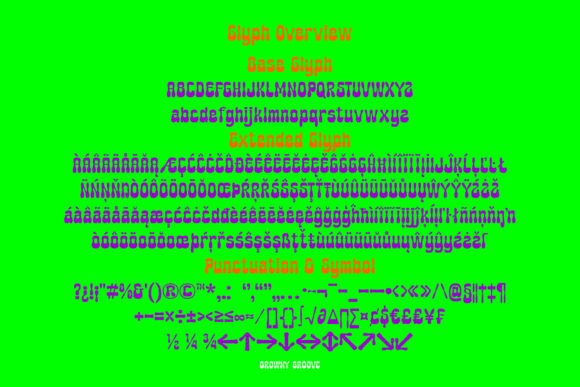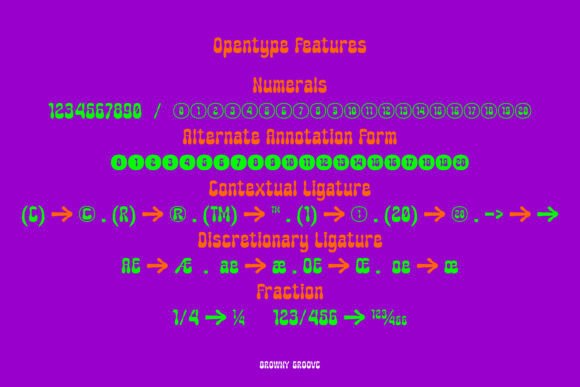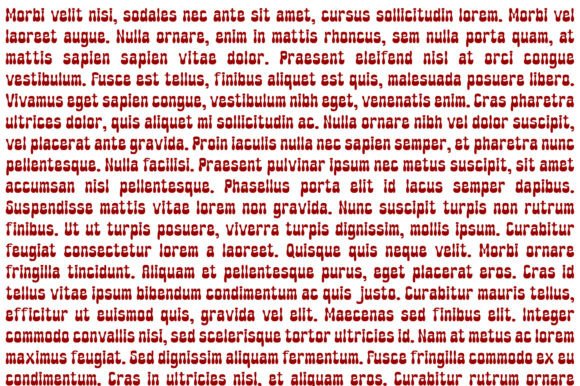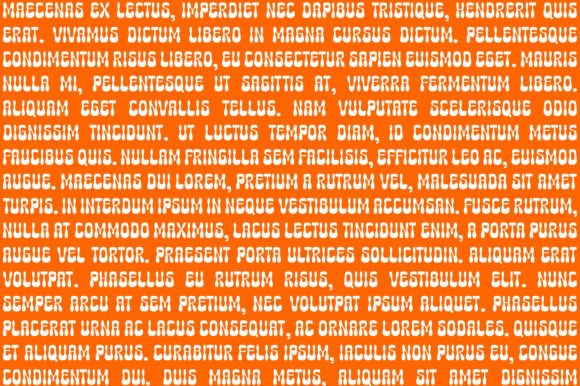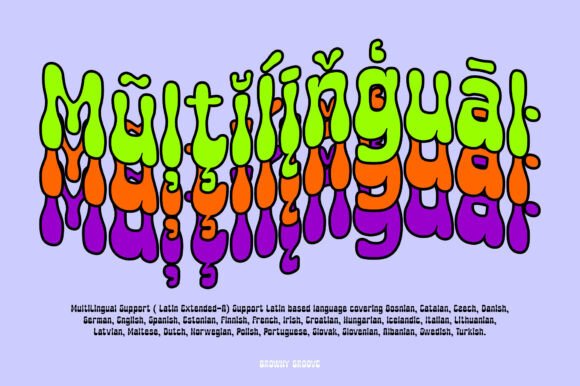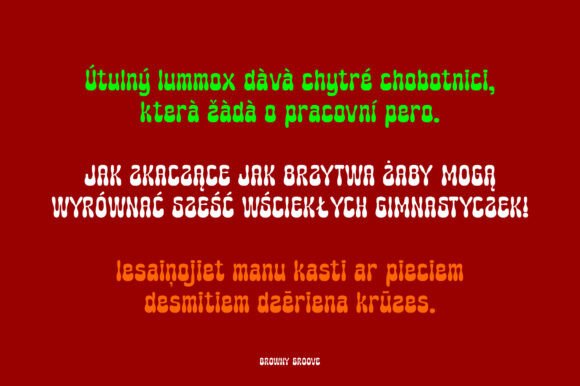
Browny Groove Font: The Ultimate Retro Font for Funky Designs
Are you looking for a font that screams fun, boldness, and a dash of nostalgia? Look no further than the Browny Groove Font! This playful, wavy font is the perfect addition to any design project that needs a cool, vintage vibe. In this article, we’ll dive into the world of Browny Groove, exploring its unique features, uses, and benefits for designers and crafters.
The Retro Charm of Browny Groove
Browny Groove is a fun and bold retro font that embodies the funky, groovy spirit of the 1970s. Its letters are designed to resemble the psychedelic art of the era, with wavy lines and a carefree attitude. The font’s playful nature makes it perfect for designs that require a dash of whimsy and personality. Whether you’re creating a poster, logo, or social media graphic, Browny Groove is sure to add a touch of retro charm.
Key Features of Browny Groove
- Fun and bold design: Browny Groove’s wavy letters are sure to grab attention and add a playful touch to your designs.
- Retro vibe: The font’s psychedelic feel is reminiscent of the 1970s, making it perfect for designs that require a vintage look.
- Versatile: Browny Groove can be used for a wide range of design projects, from posters and logos to social media graphics and crafts.
- Easy to read: Despite its playful nature, Browny Groove is surprisingly easy to read, making it perfect for designs that require a clear message.
Uses for Browny Groove
Browny Groove is an incredibly versatile font that can be used for a wide range of design projects. Here are a few ideas to get you started:
- Posters: Create eye-catching posters for concerts, festivals, or events with Browny Groove’s bold, playful letters.
- Logos: Add a touch of retro charm to your logo with Browny Groove’s funky, wavy design.
- Social media graphics: Use Browny Groove to create engaging social media graphics that are sure to stand out.
- Crafts: Browny Groove is perfect for crafters who want to add a personal touch to their projects, from DIY signs to handmade cards.
Browny Groove offers a range of benefits for designers and crafters, including:
- Unique designs: Browny Groove’s playful, wavy letters are sure to add a unique touch to your designs.
- Time-saving: With Browny Groove, you can create professional-looking designs in no time, thanks to its easy-to-use and versatile nature.
- Inspiration: Browny Groove’s retro vibe is sure to inspire your creativity and help you come up with fresh design ideas.
Tips for Using Browny Groove
Here are a few tips for getting the most out of Browny Groove:
- Experiment with colors: Browny Groove’s bold design looks amazing with bright, bold colors. Don’t be afraid to experiment and find the perfect color combination for your design.
- Play with sizes: Browny Groove looks great in large and small sizes. Experiment with different font sizes to add visual interest to your design.
- Combine with other fonts: Browny Groove pairs well with other fonts, especially sans-serif fonts. Try combining it with other fonts to create a unique and interesting design.
Browny Groove Font is a fun, bold, and versatile font that’s perfect for designers and crafters who want to add a touch of retro charm to their projects. With its playful, wavy letters and psychedelic vibe, Browny Groove is sure to inspire your creativity and help you create eye-catching designs. Whether you’re creating posters, logos, or social media graphics, Browny Groove is the perfect addition to your design toolkit.